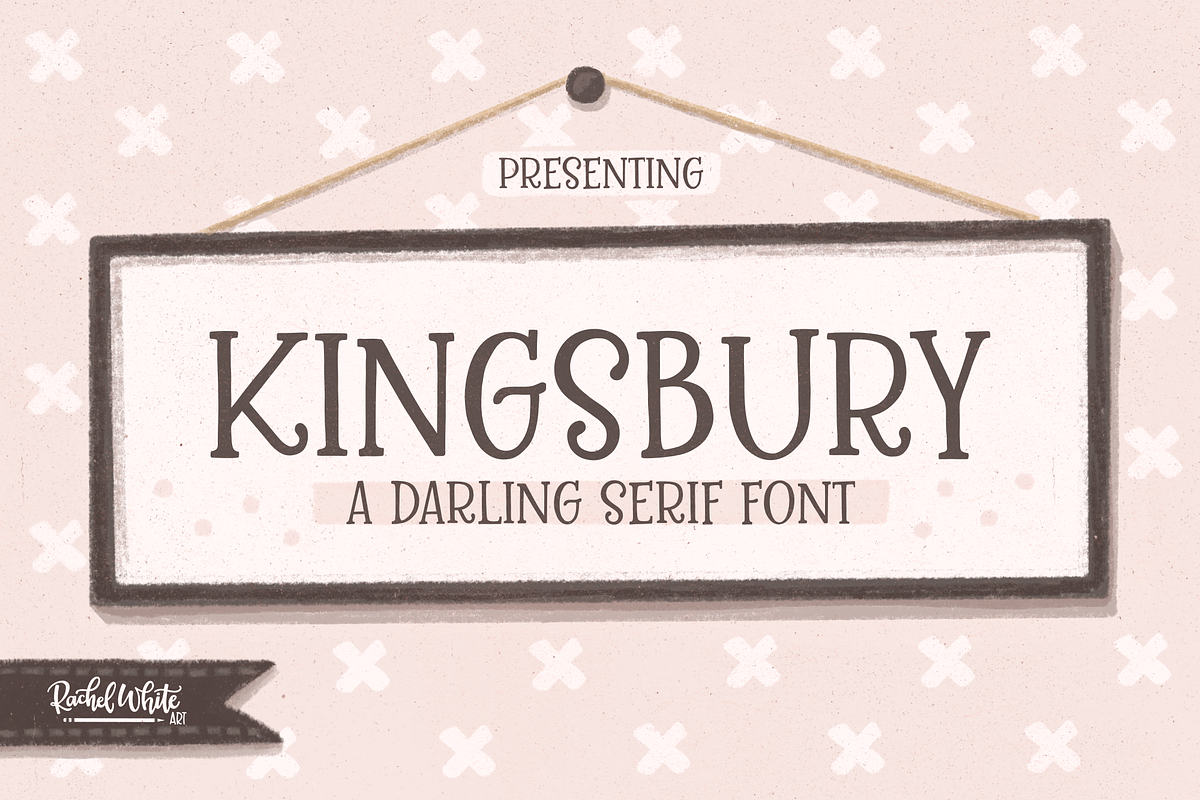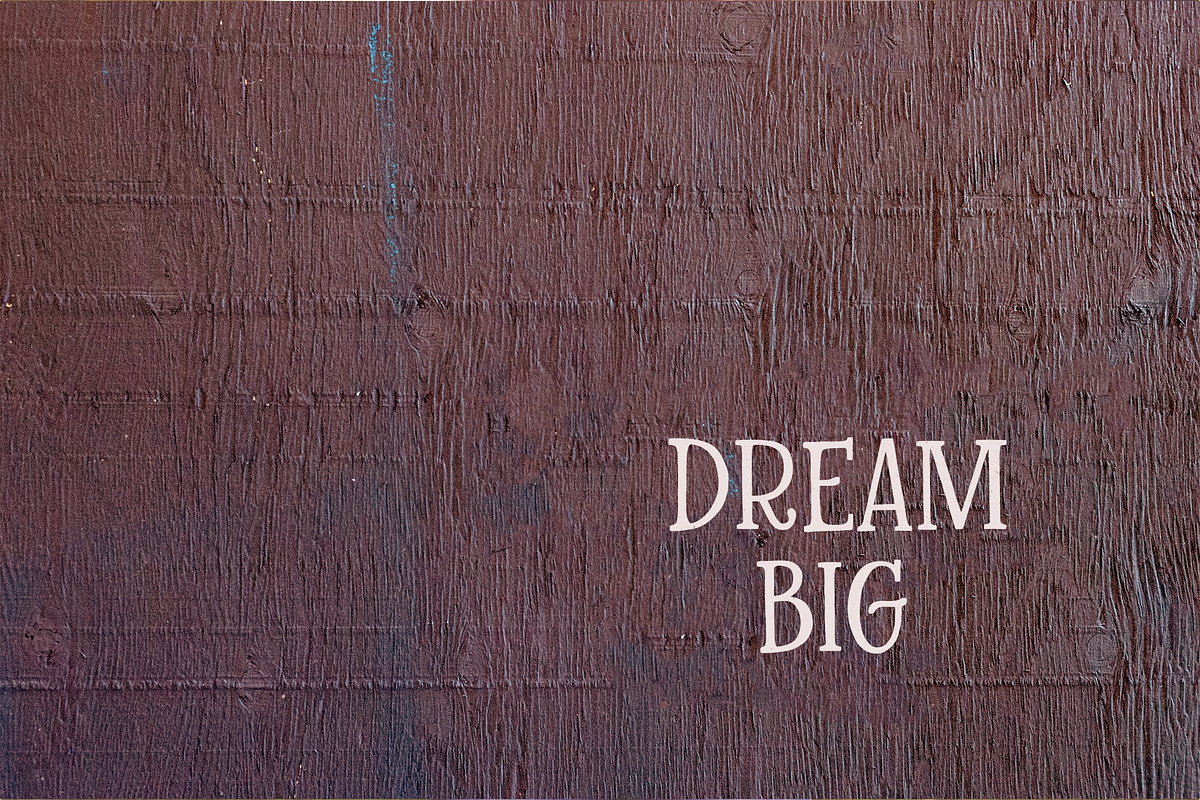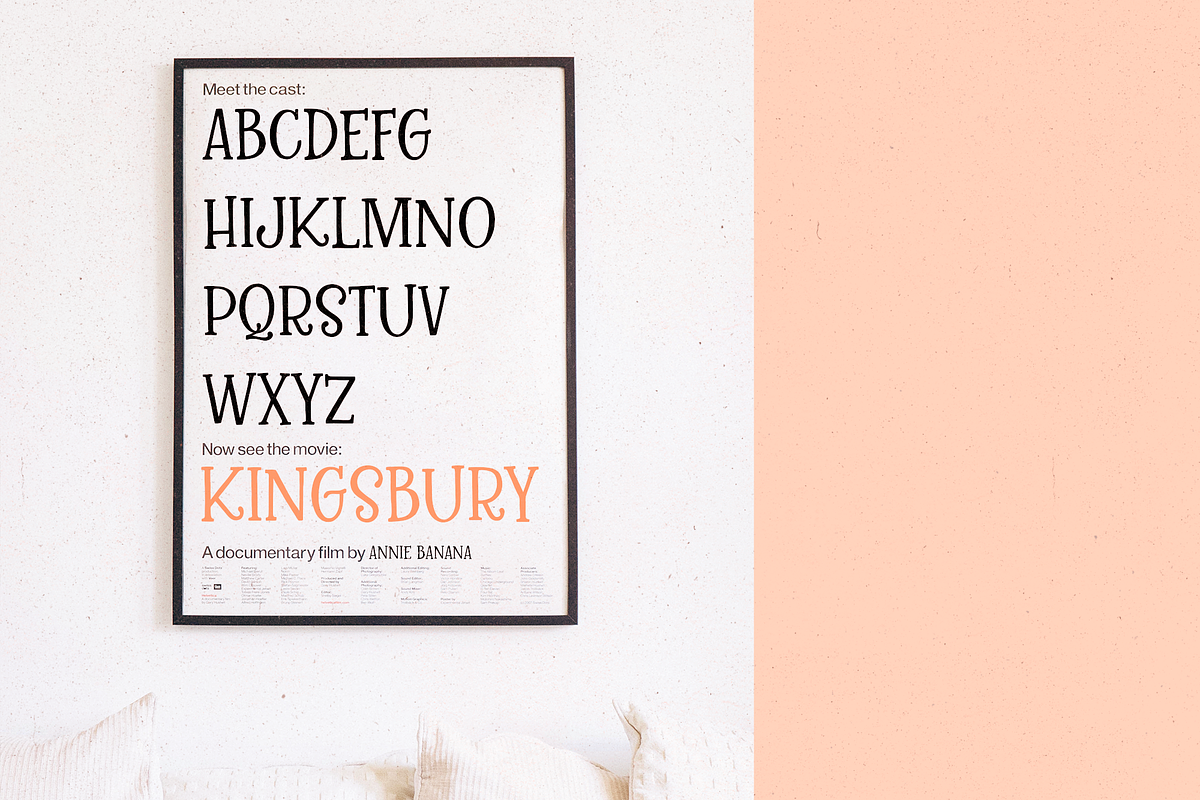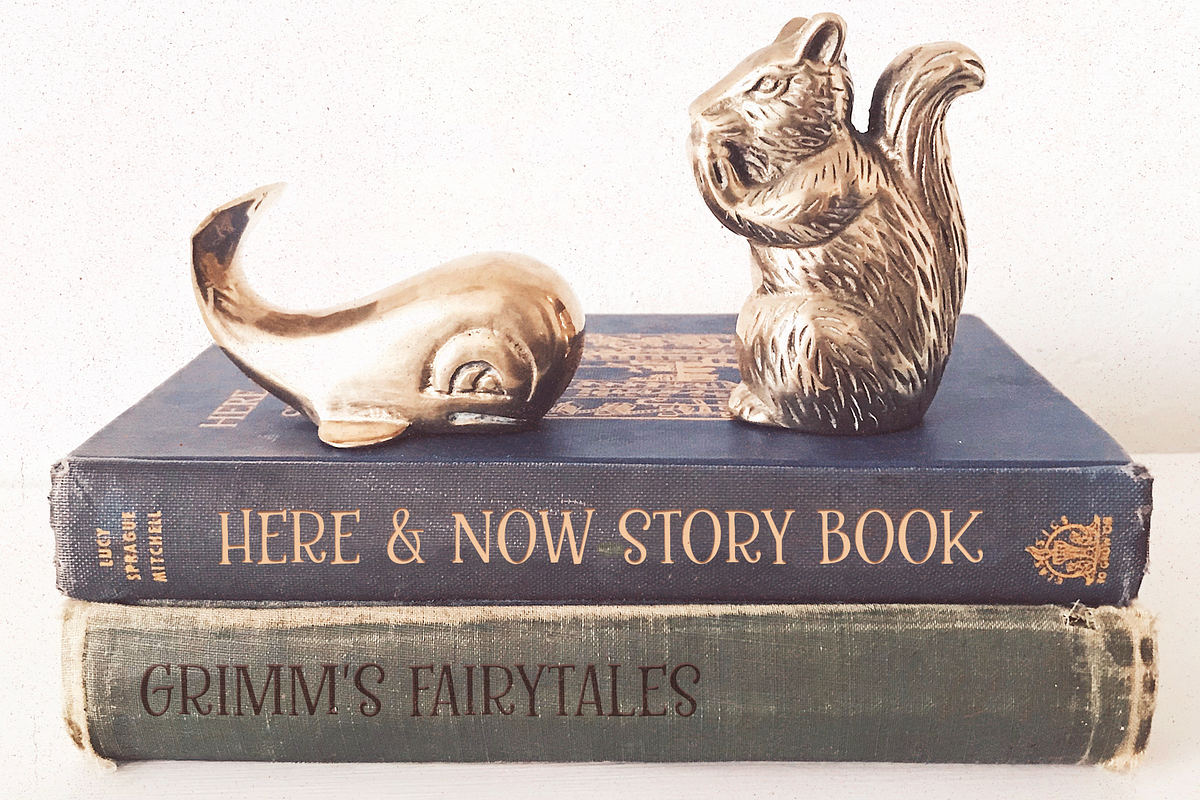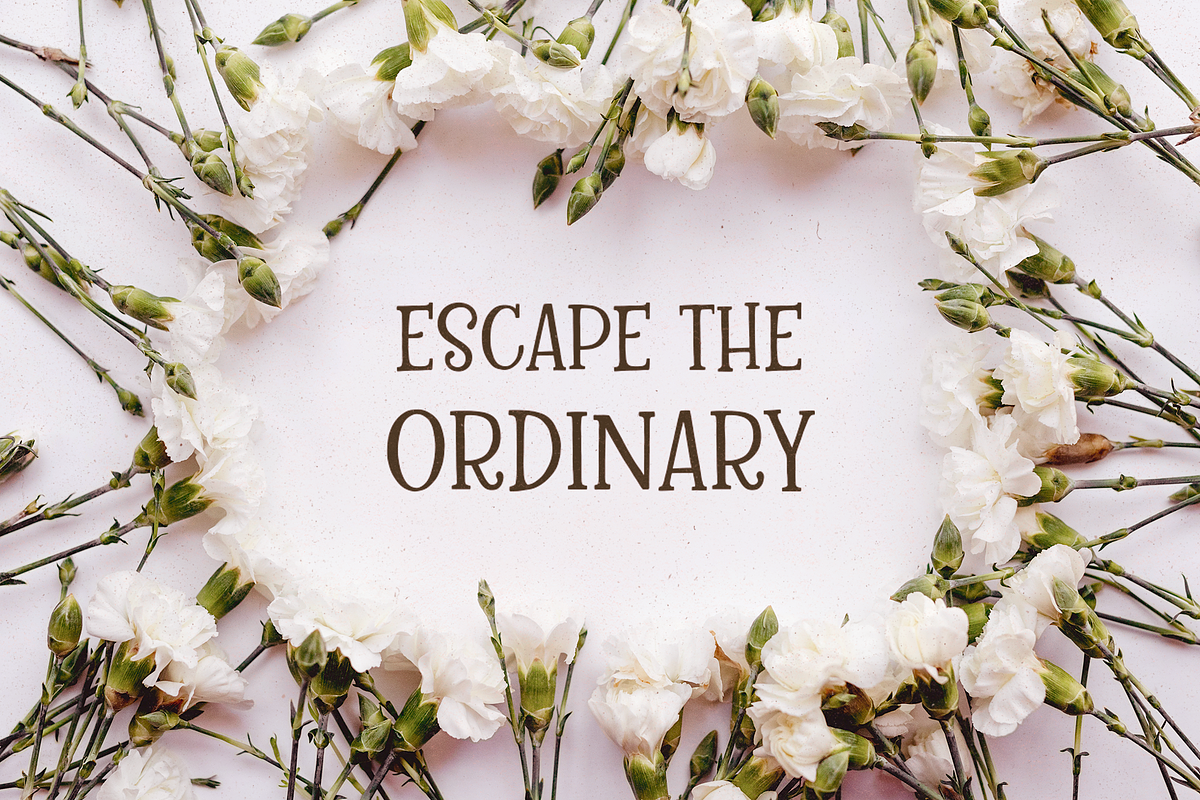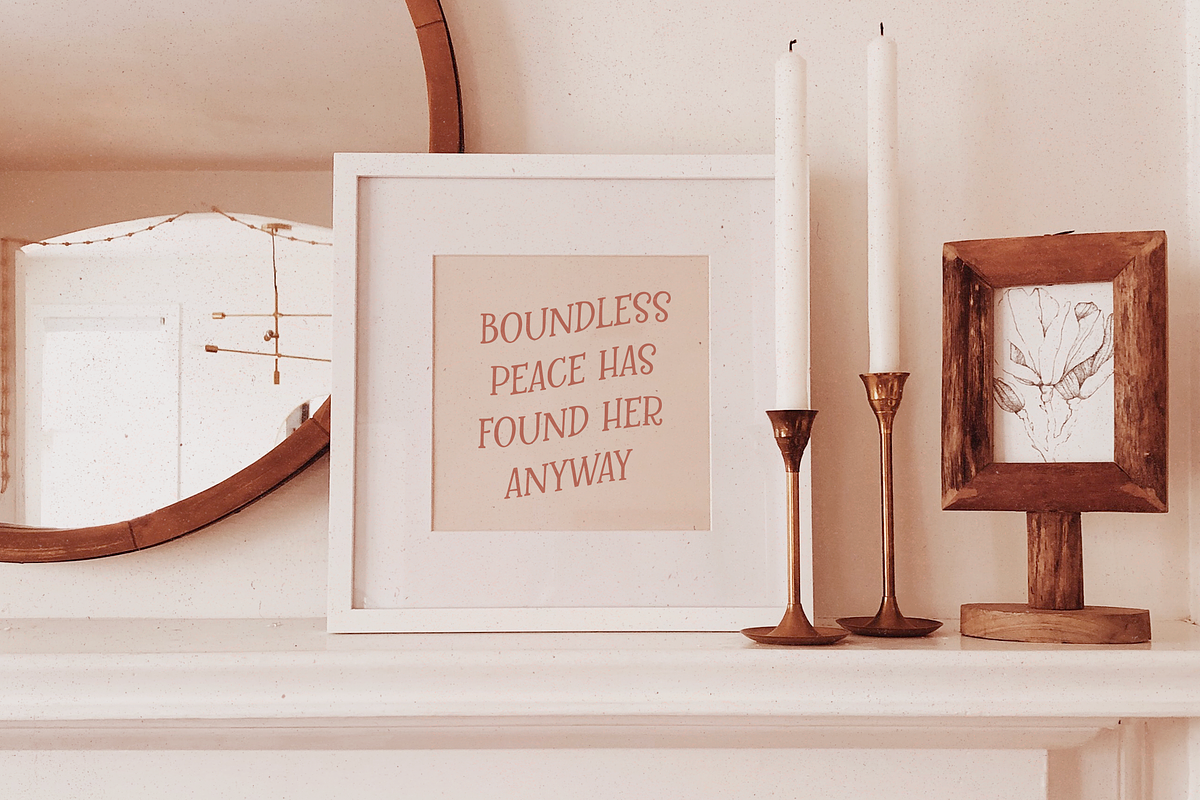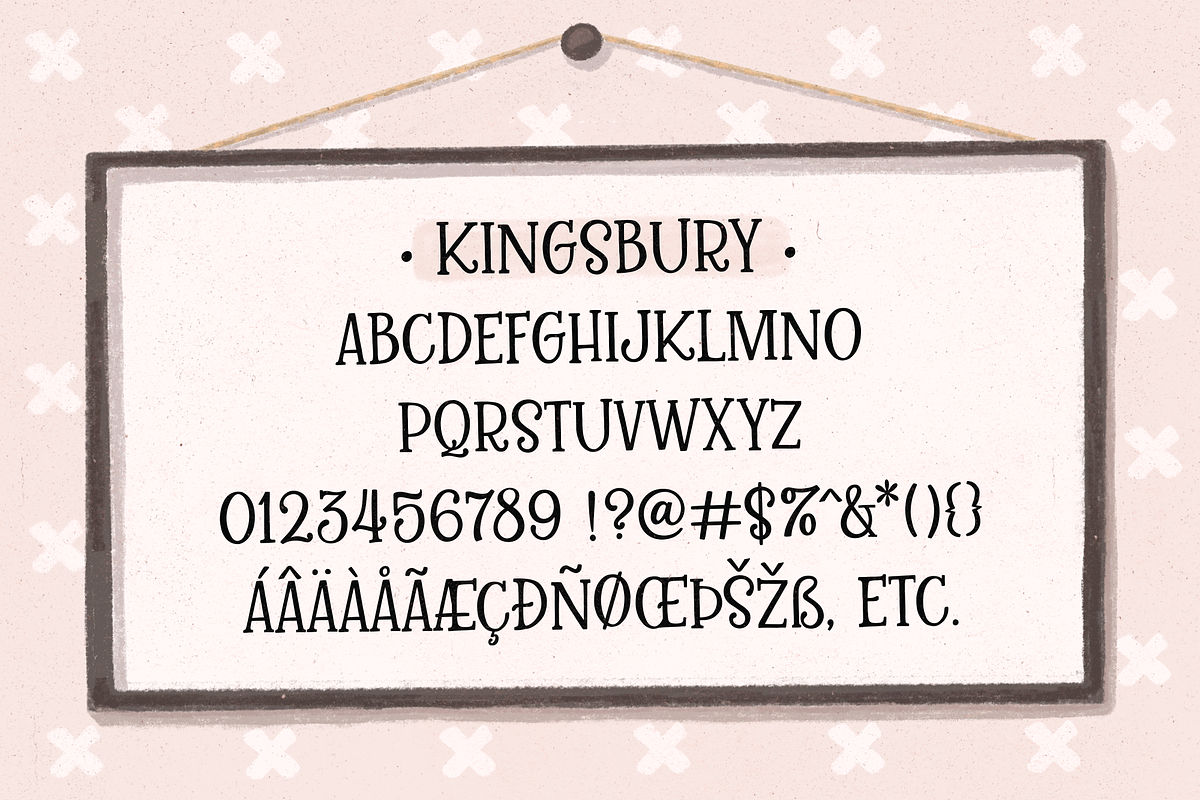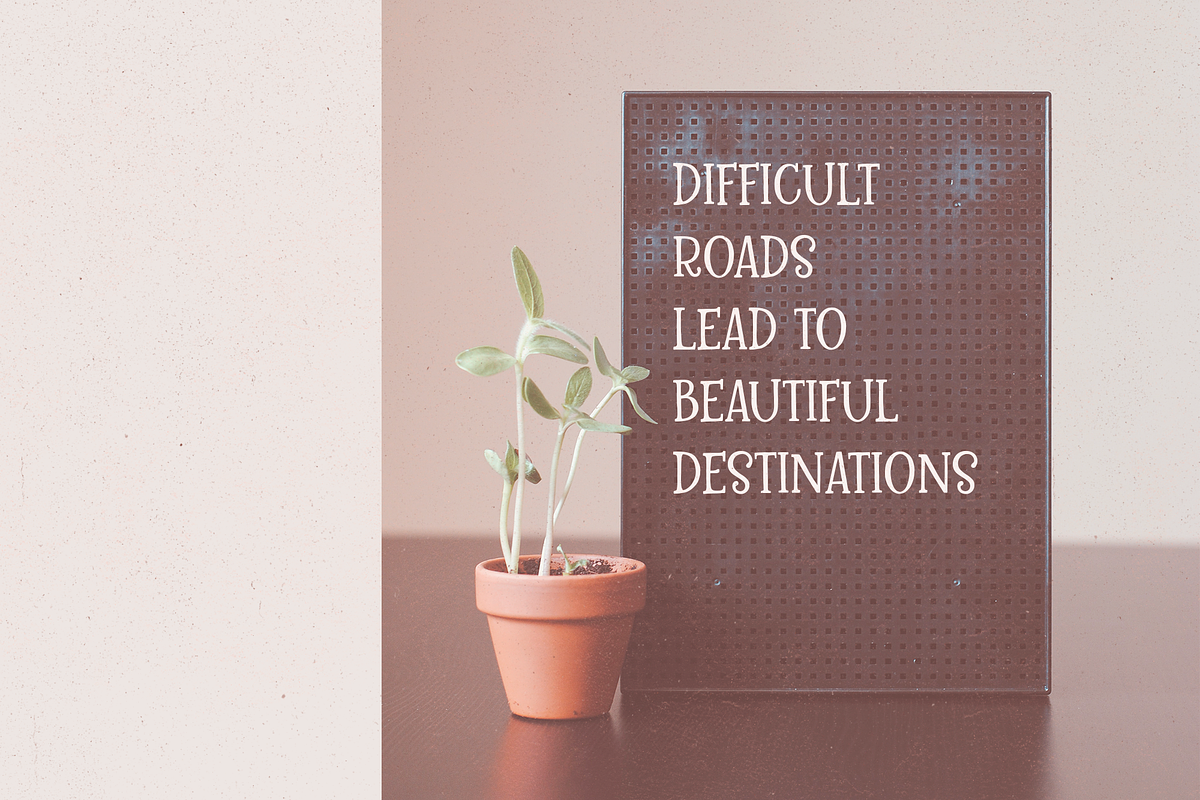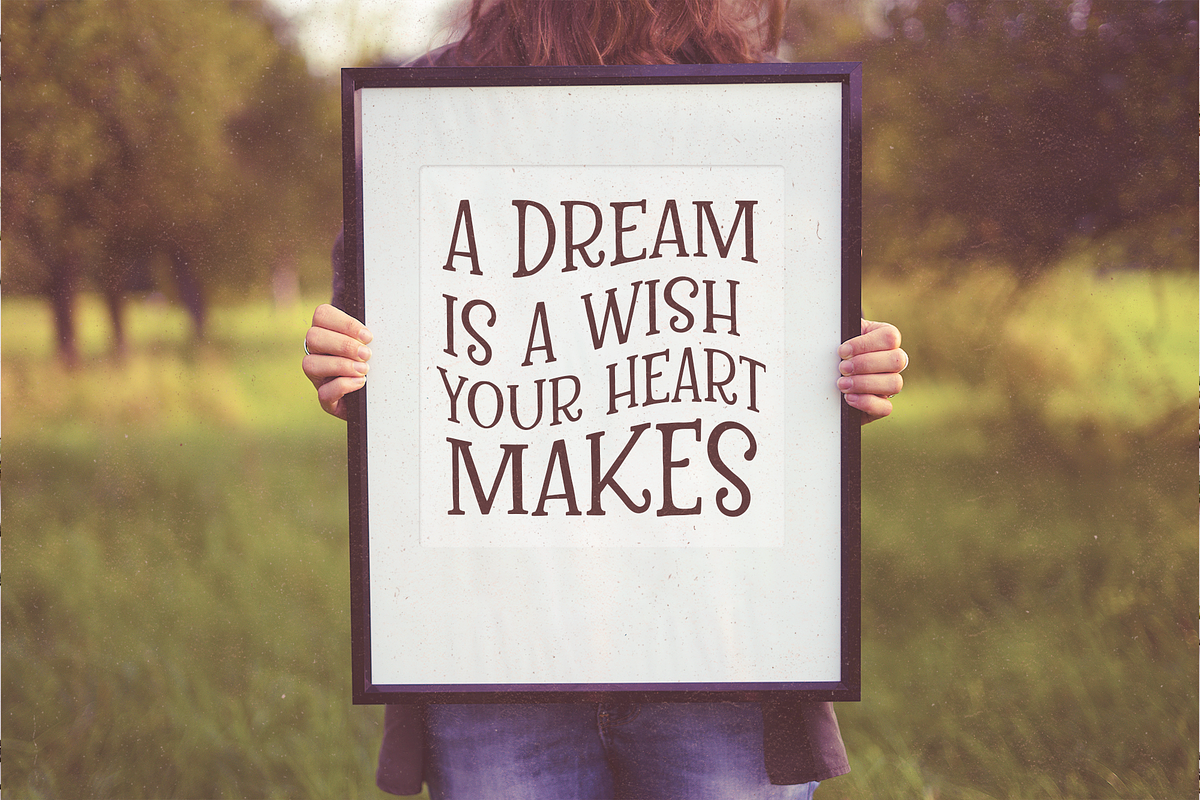
Kingsbury, a darling serif caps font
Kingsbury is a cute and playful all-caps serif font with soft curves and charming personality. It’s perfect for adding a sweet, handcrafted feel to children’s designs, logos, greeting cards, product packaging, and more.
Each letter was hand-drawn with love, giving Kingsbury a slightly quirky look that makes your text feel warm and approachable. Whether you're working on a kids’ brand, a nursery print, or a cheerful headline, this font adds just the right amount of whimsy.
- Multi-lingual support for Western European languages
Great for: Kids products, logos, branding, stationery, packaging, display text, quotes